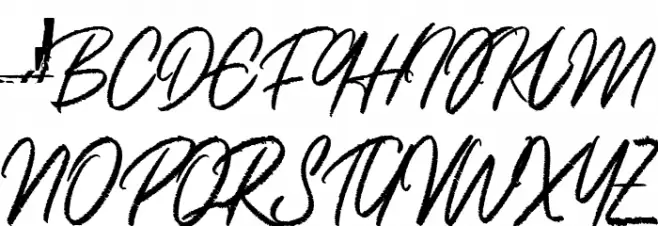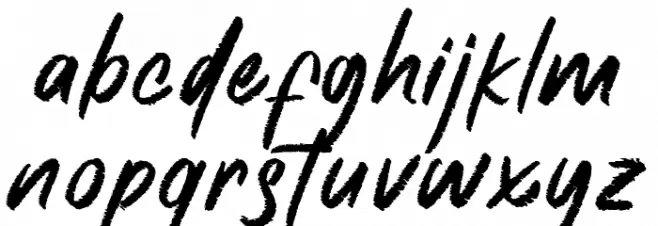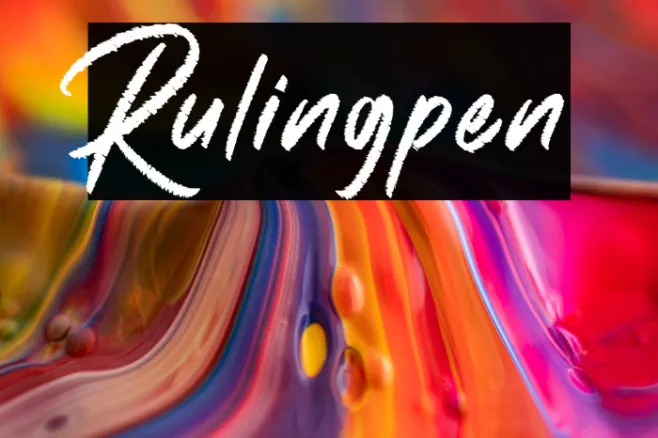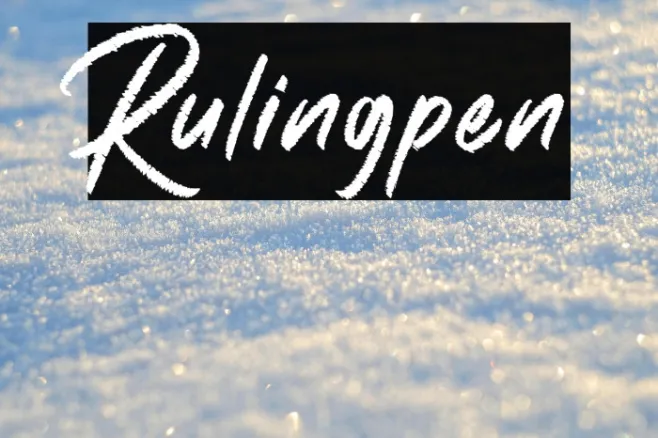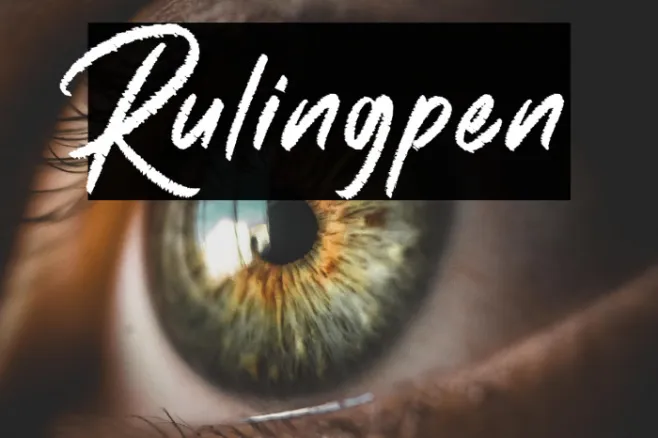
Rulingpen Font
Rulingpen Description
This font features a dynamic and expressive script style, characterized by its fluid, handwritten appearance. The letters are connected, creating a seamless flow that mimics natural handwriting. The strokes vary in thickness, adding a lively and energetic feel to the text. The uppercase letters are bold and prominent, while the lowercase letters maintain a consistent rhythm, enhancing readability. The font's playful yet sophisticated style makes it suitable for a variety of creative applications.
A dynamic, expressive script font with a fluid, handwritten style.
- Proposed Projects: Ideal for wedding invitations, greeting cards, branding, and logo design, where a personal touch is desired.